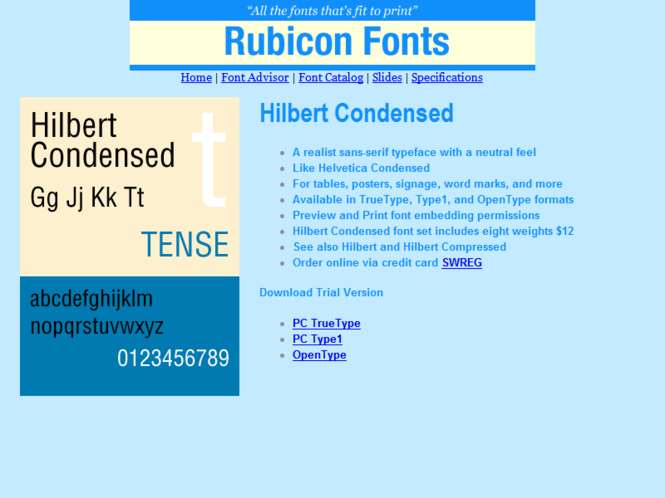
Condensed realist sans serif font with a neutral feel. Like Helvetica Condensed. An unobtrusive typeface that seems to be everywhere. Fit more text into restricted spaces without losing legibility. Great for tables, posters, signage, and other graphic material. Accurate and hinted, matching font metrics, standard character set, kerning pairs. Professional print quality for inkjet, laser, typesetter to 3500 dpi.